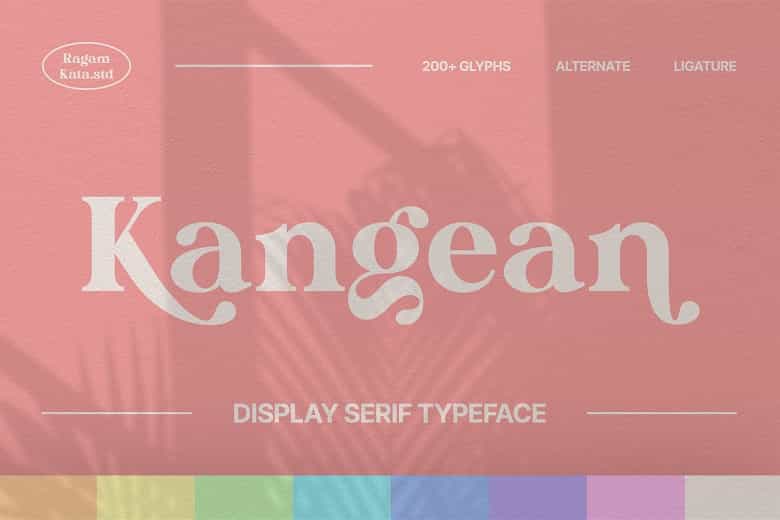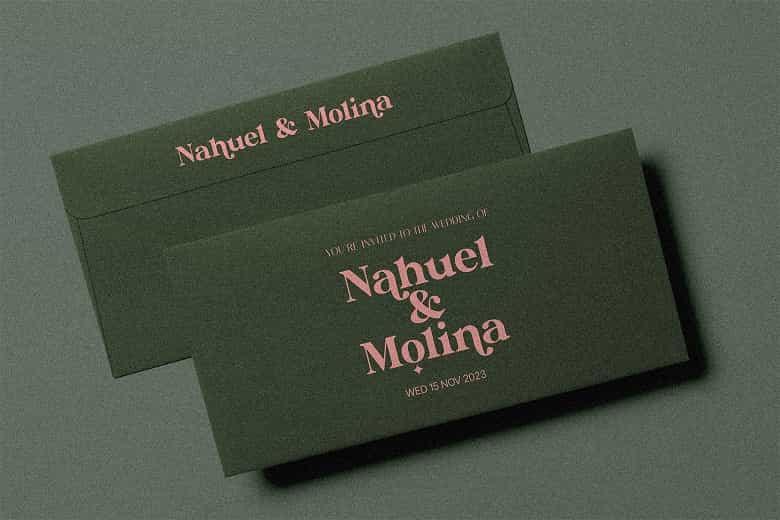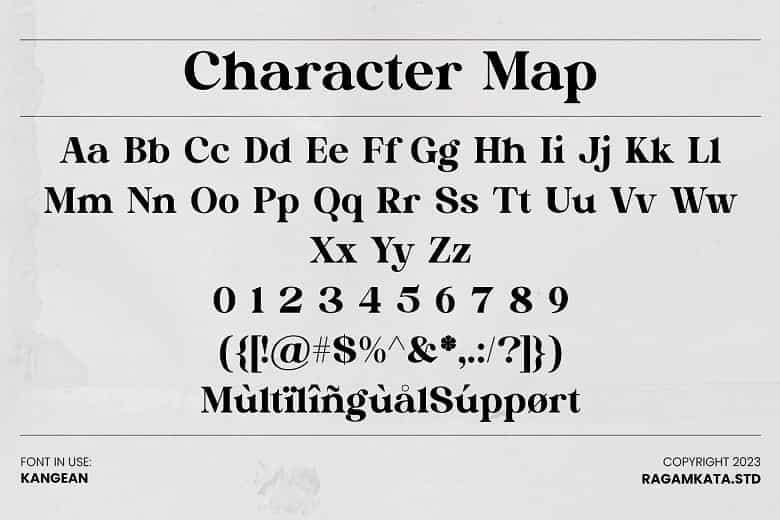
Kangean is an elegant display serif font style. It’s suitable for display which has been creatively modernized. Allow your designs to be elegant and up-to-date with the help of Kangean that includes a set of various alternates and ligatures that will enhance your project.